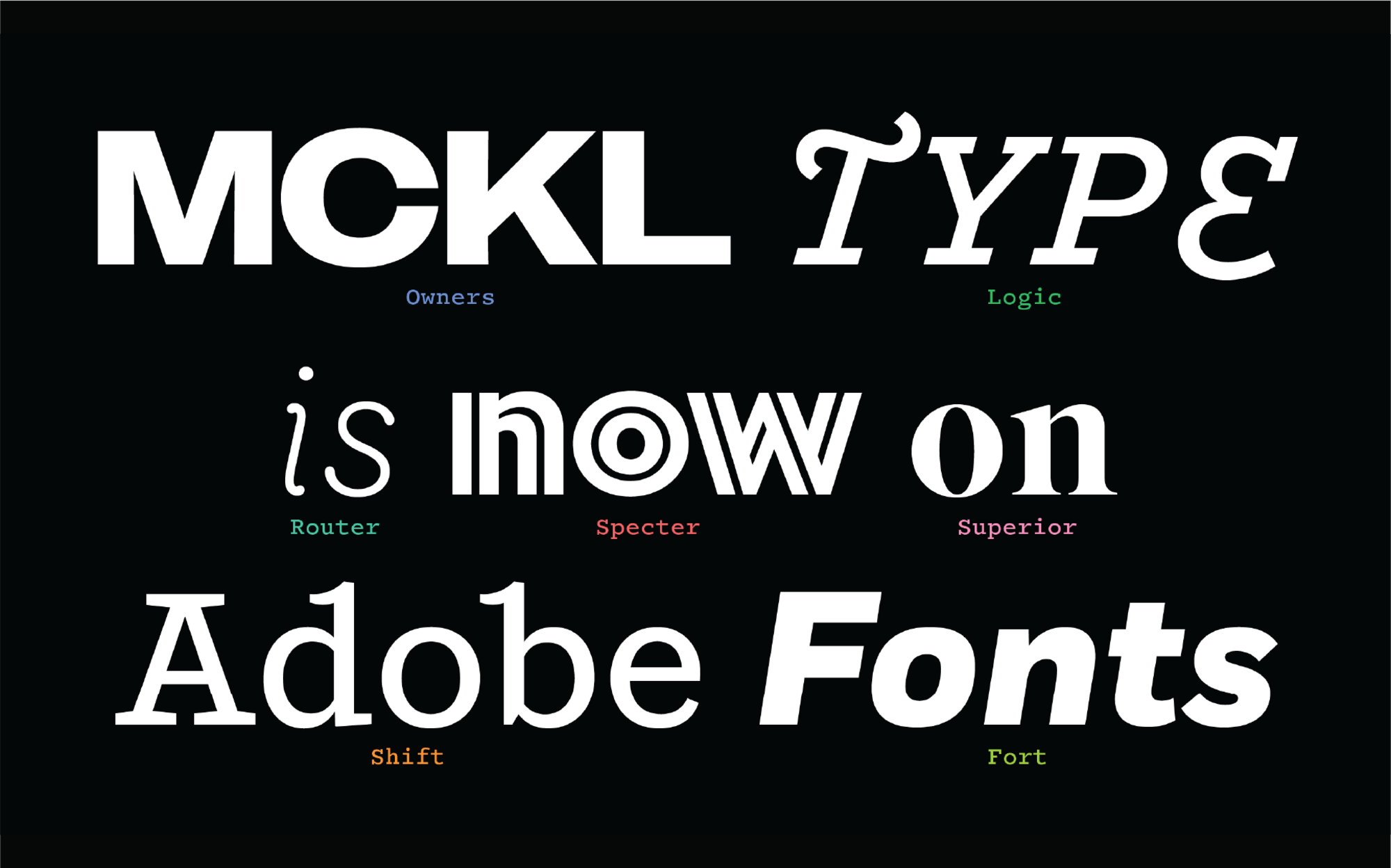
Logic Monospace
Logic is a warmly technical monospace typeface in five weights of roman and italic styles, with a special connecting script version.
Specter is the latest addition to the MCKL library of typefaces: a constructed sans with sheared terminals, a friendly lowercase, true italics, and special inline styles.